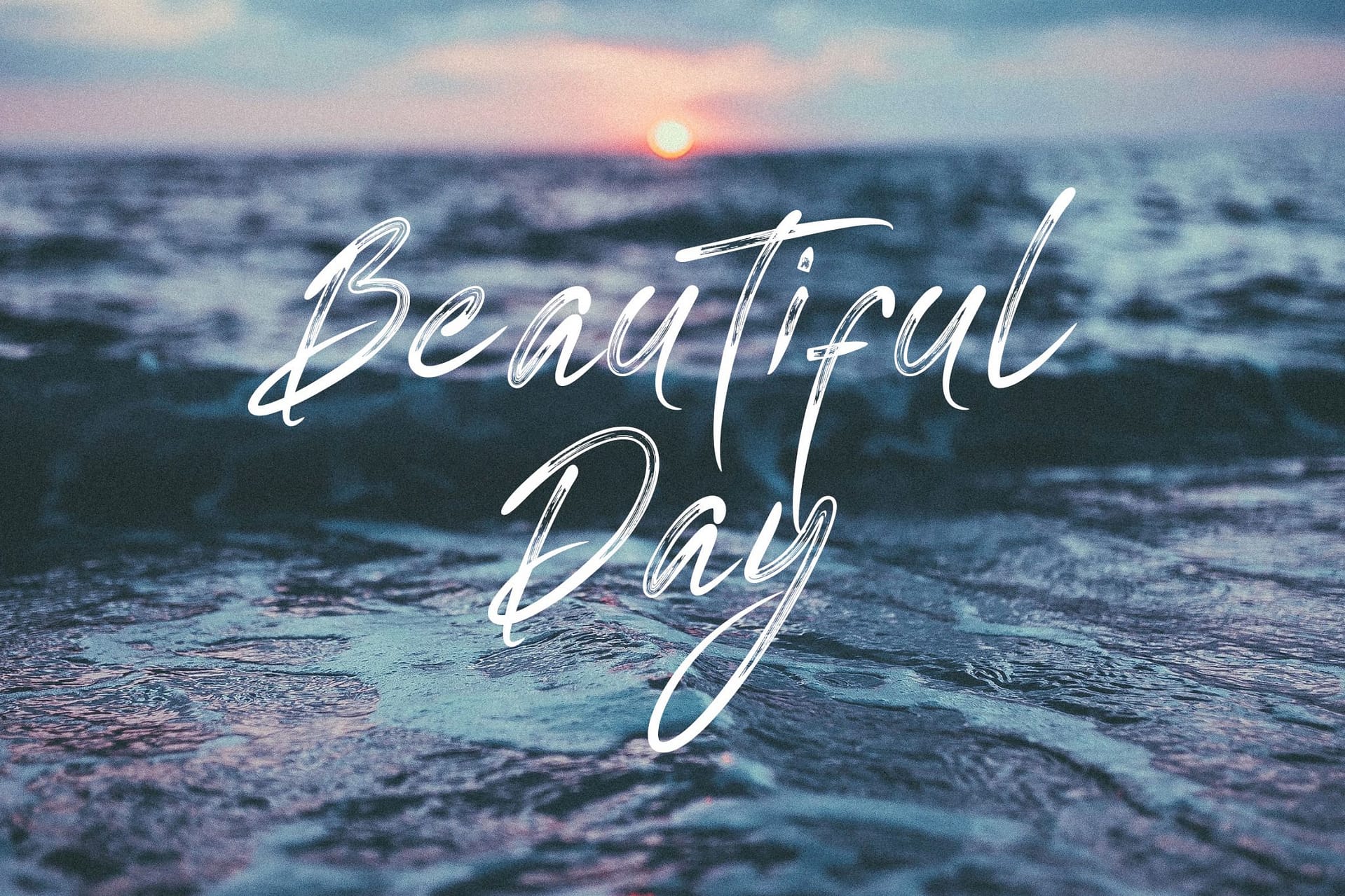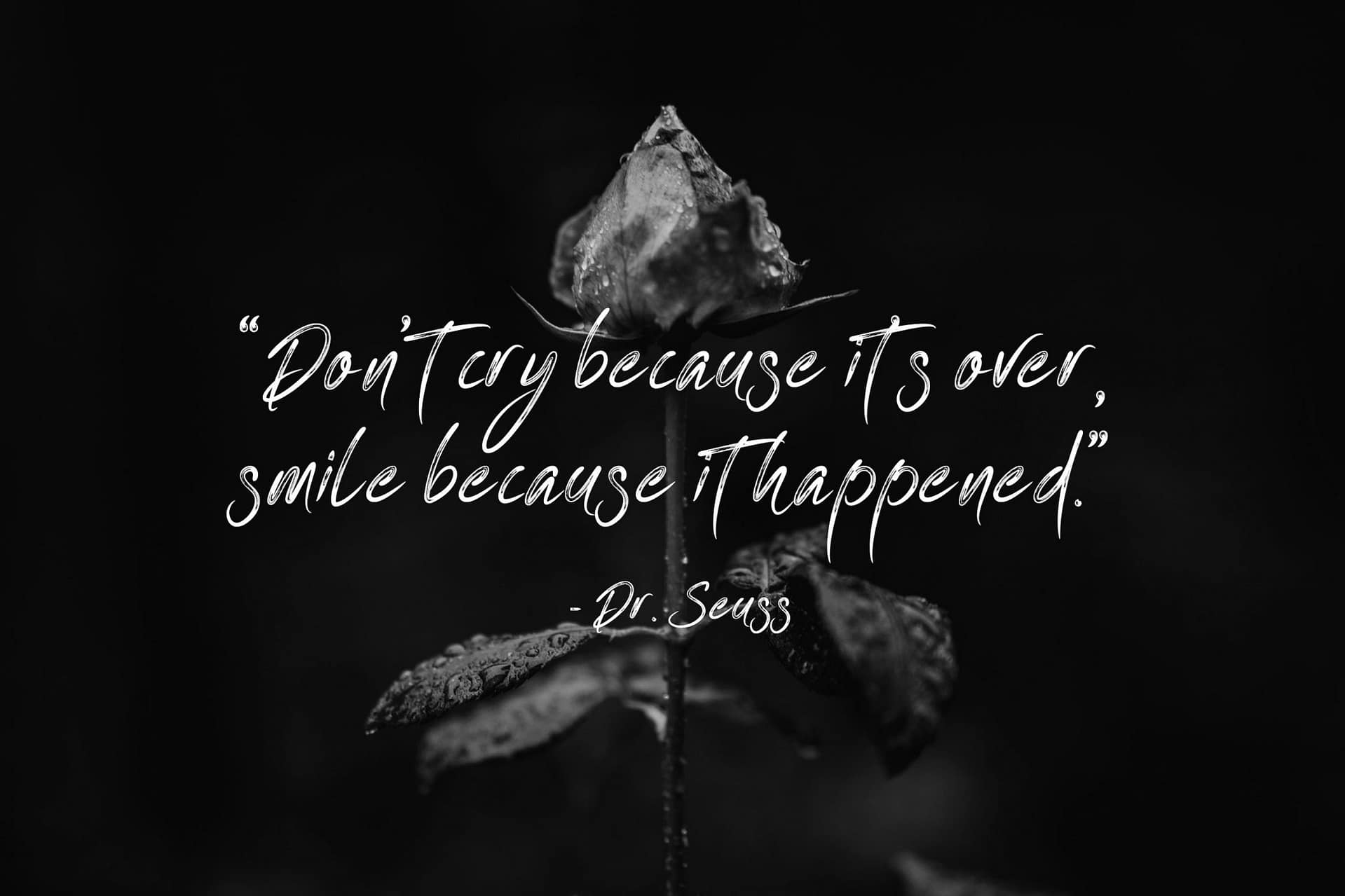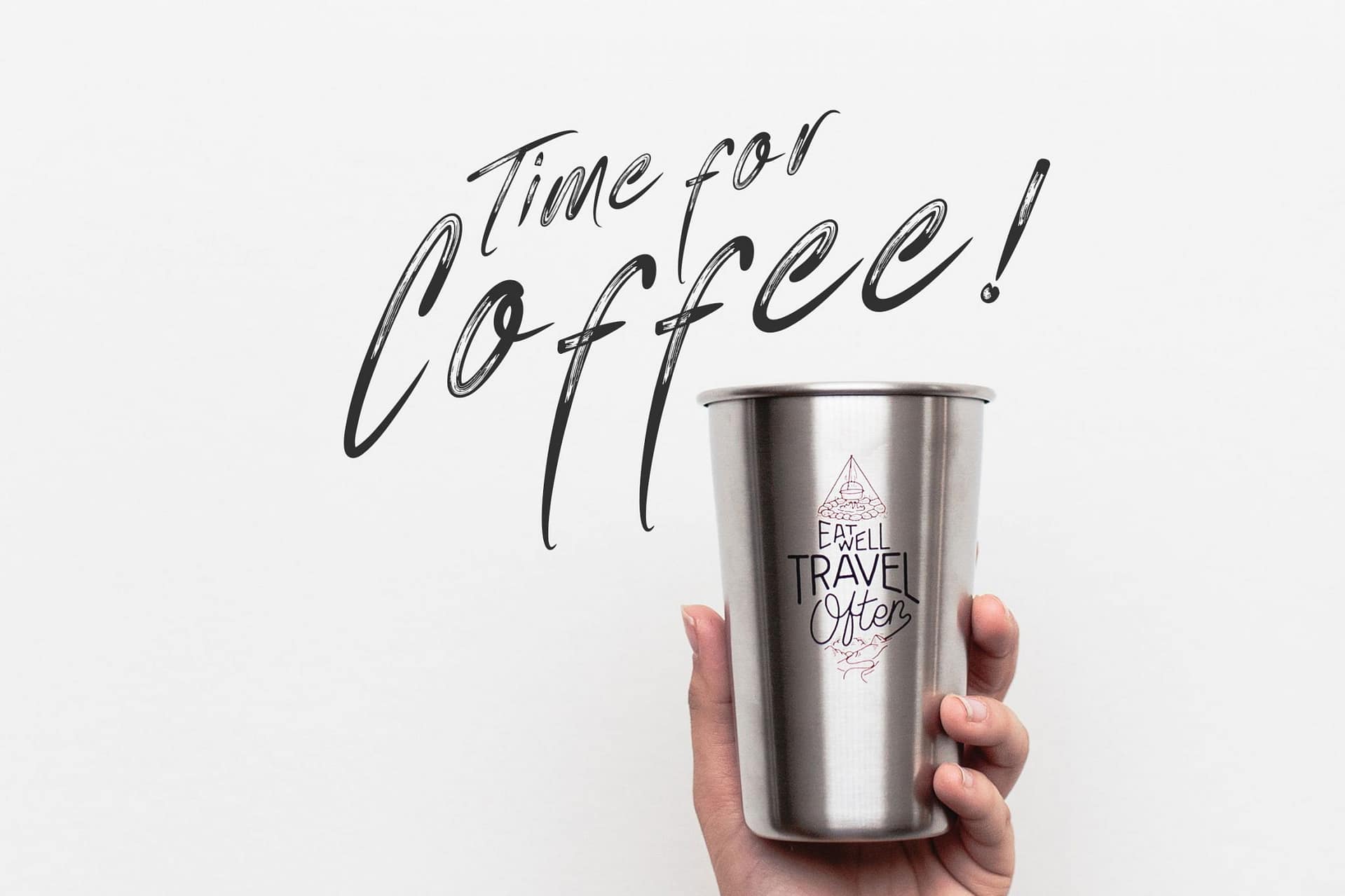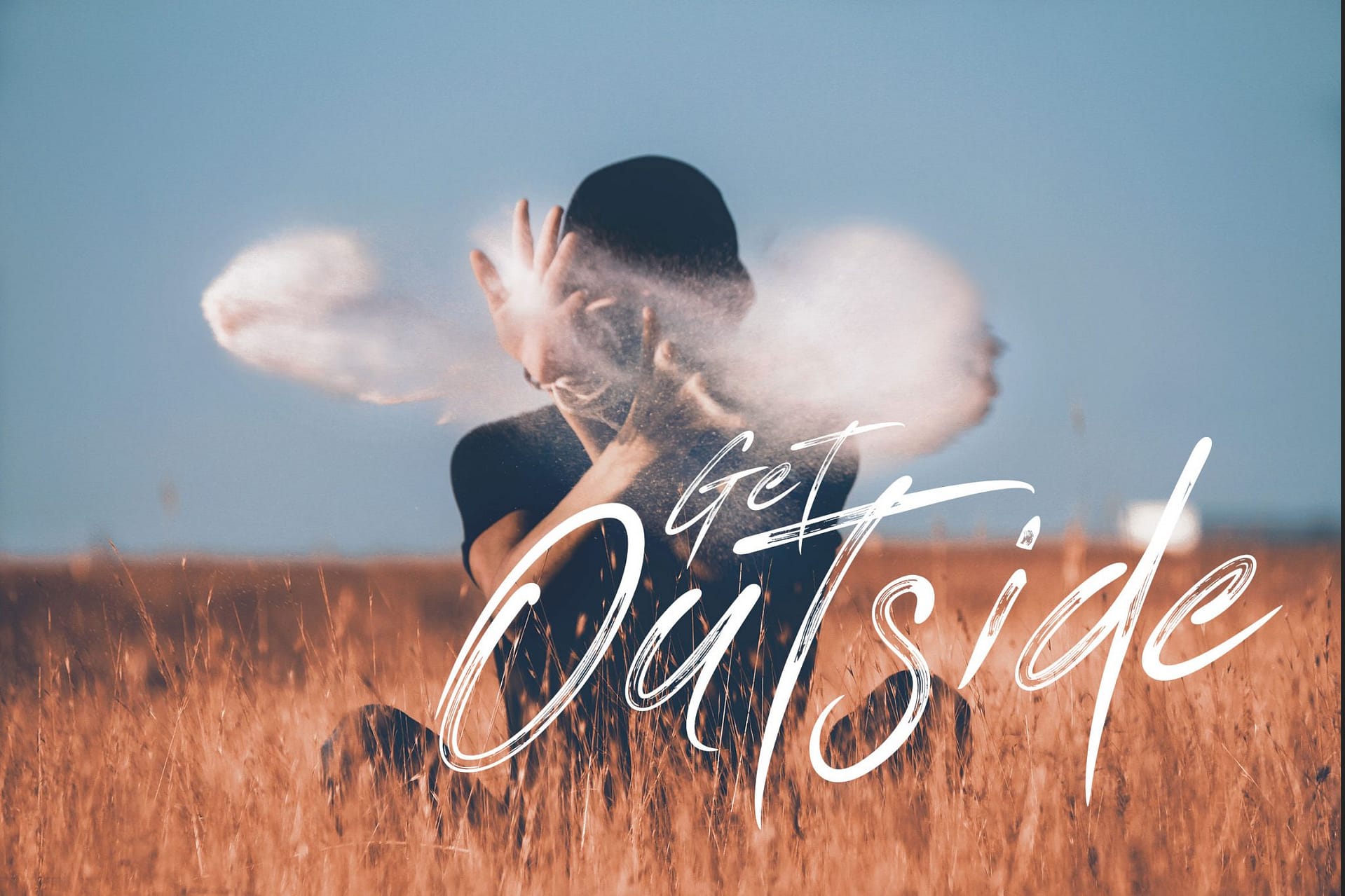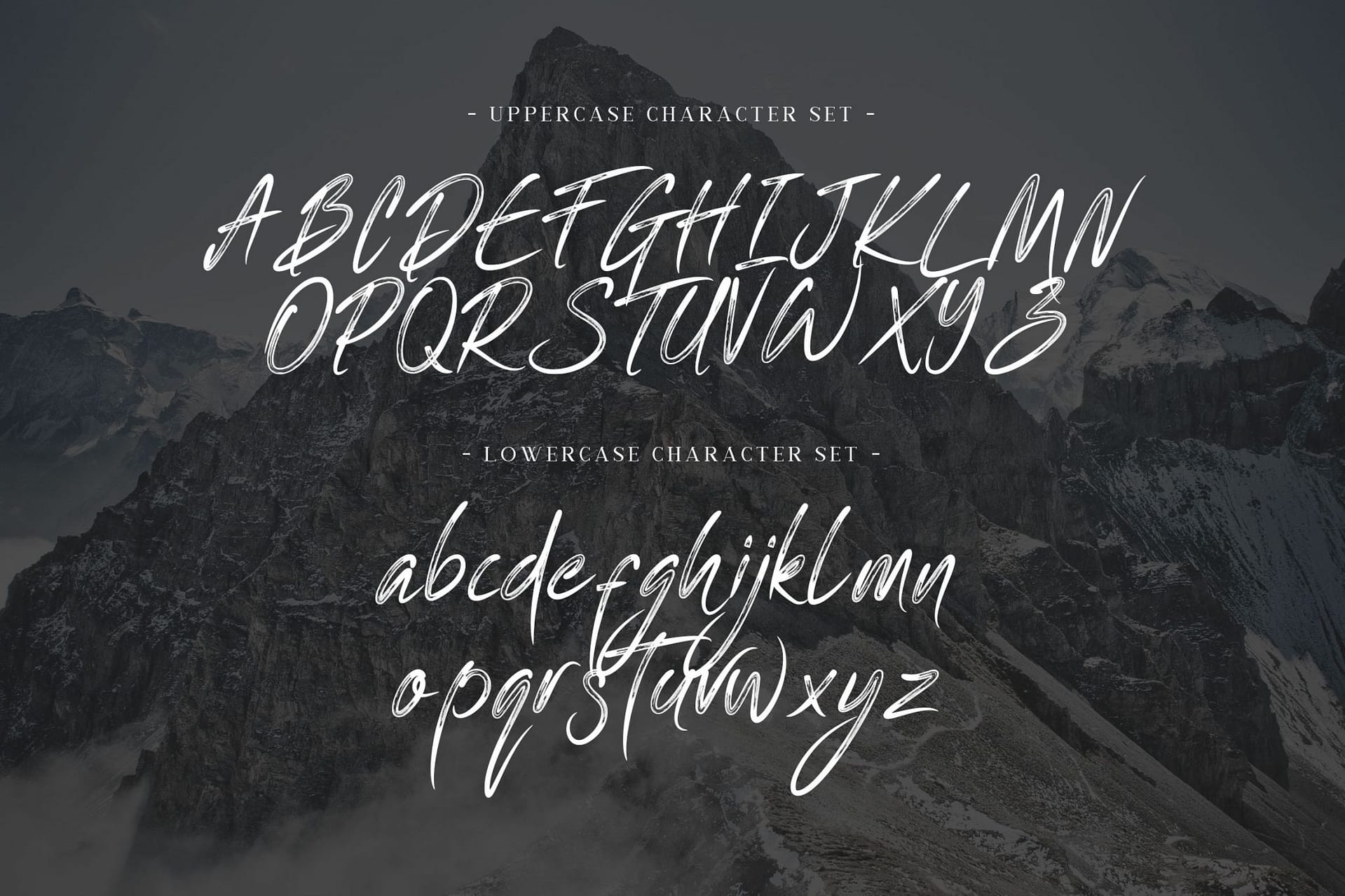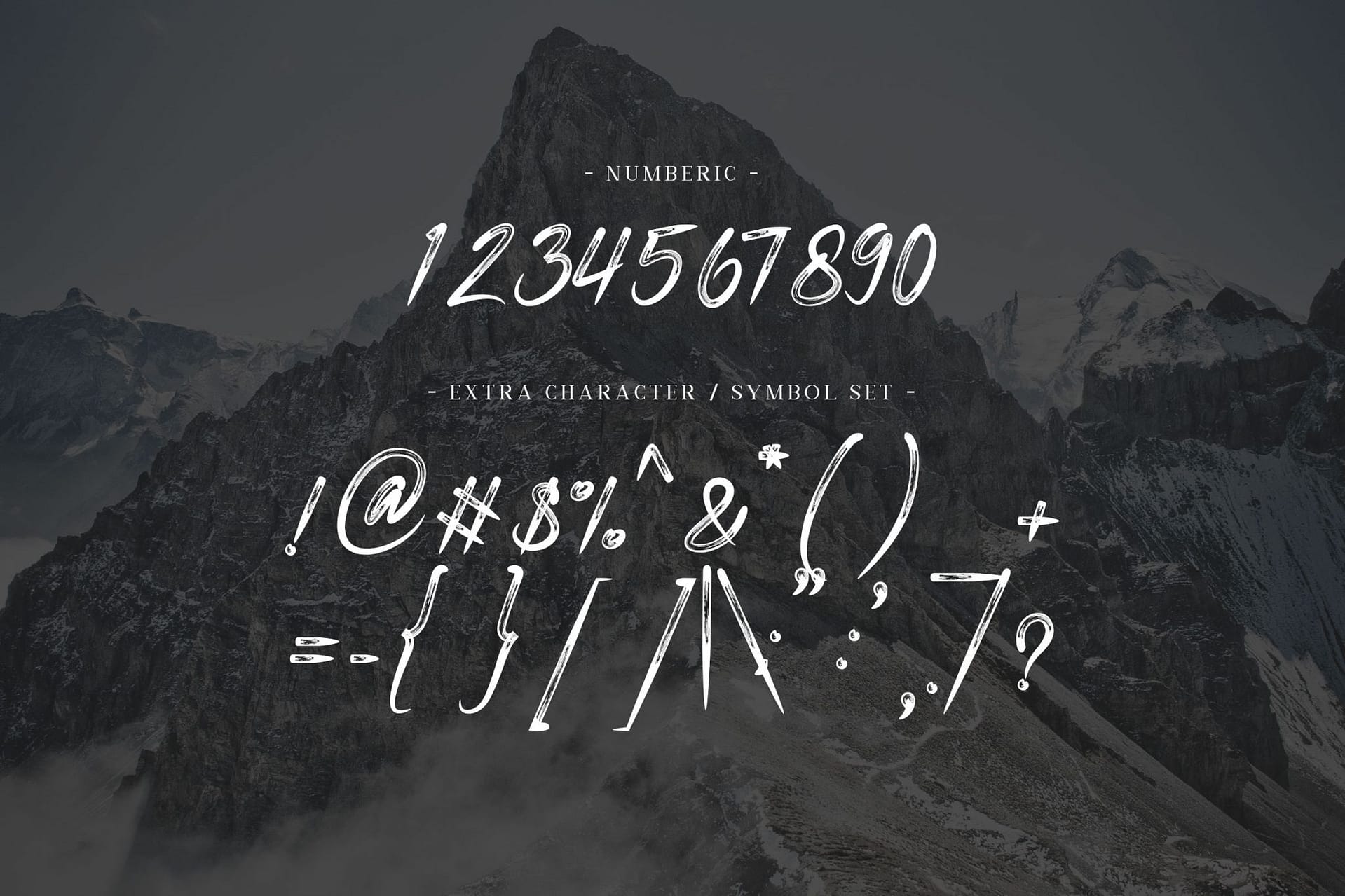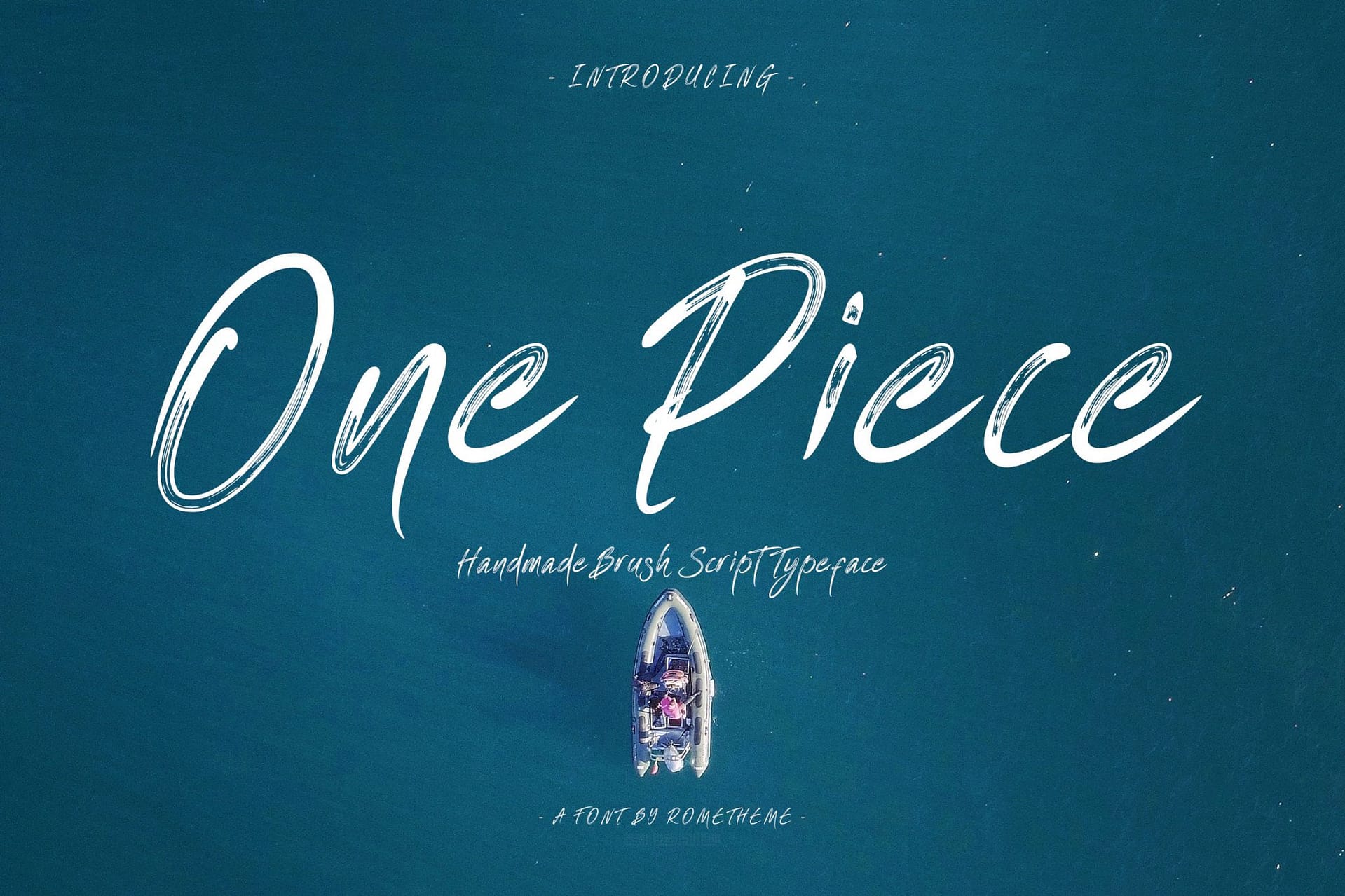
One Piece - Brush Typeface
One Piece is a brush script typeface. this font looks elegant, classy, readable, stylish, catchy and easy to use.
One Piece is the best choice for your professional design projects, including signature, watermark on photography, quotes, wedding, fashion, letter, invitation, business card, logo, branding, magazines, social media, advertisements, product designs, and much other design projects.
• Basic Latin A-Z and a-z
• Numbers
• Symbols